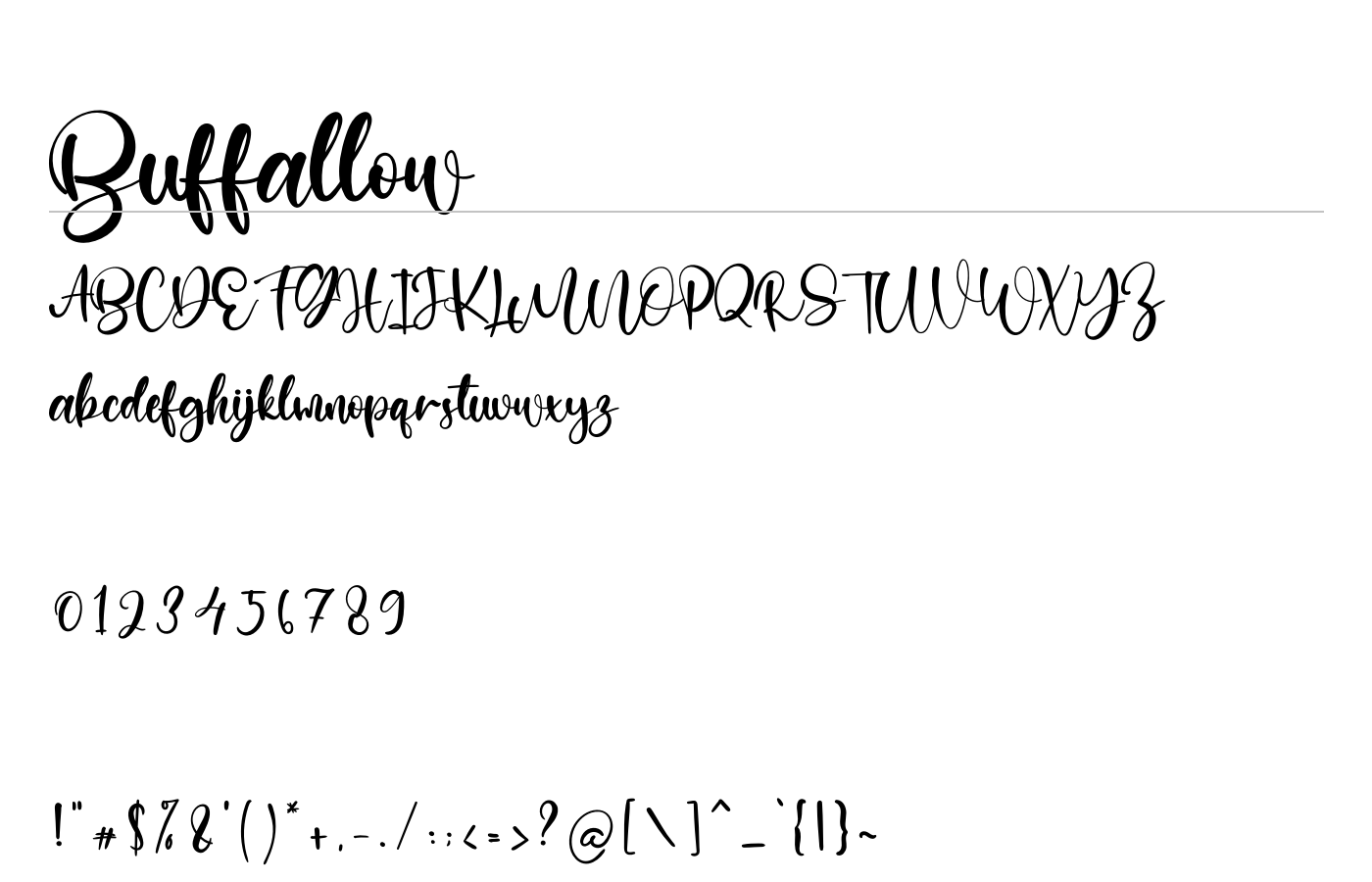
Buffallow is a lively and elegant script font with a handwritten feel, featuring smooth, flowing strokes and a medium weight that balances readability with decorative flair. Its tall, narrow letterforms and playful loops make it ideal for creative branding, invitations, and feminine design projects that seek a personal, charming touch. This font works beautifully in headlines or logos where a friendly yet refined style is desired.
Buffallow Font
About Buffallow Font